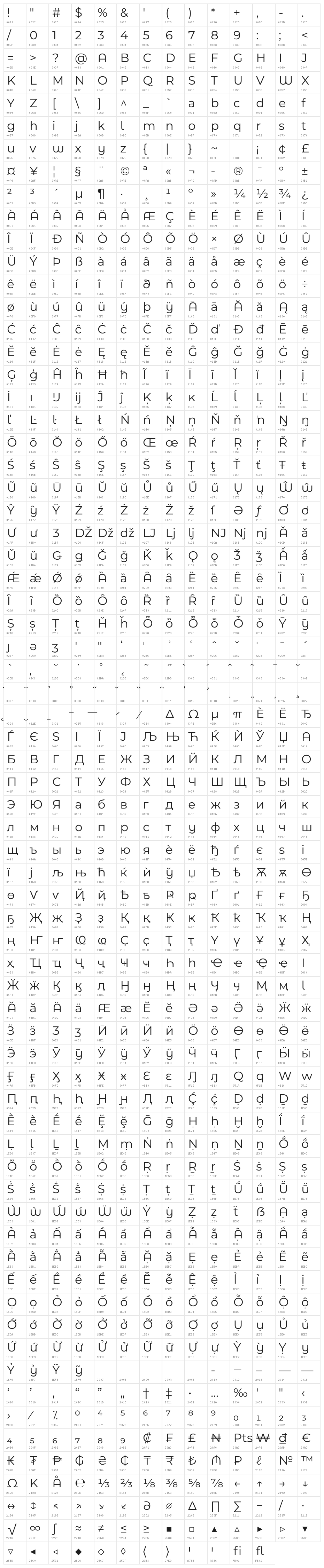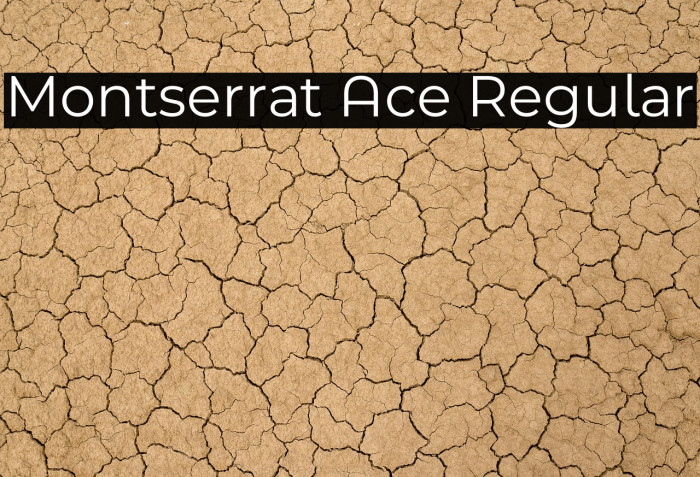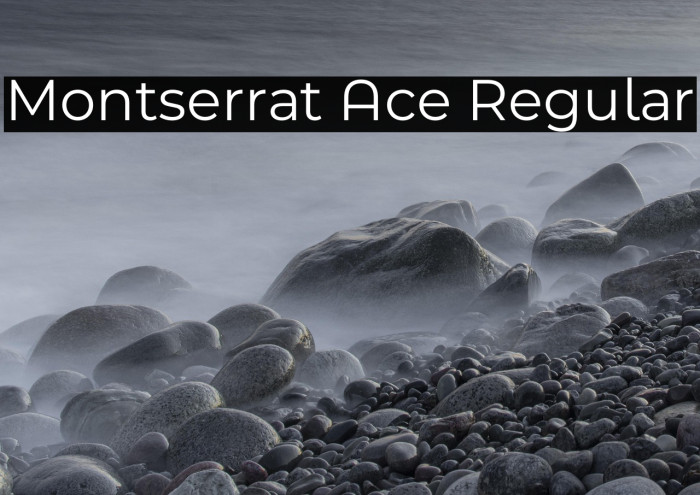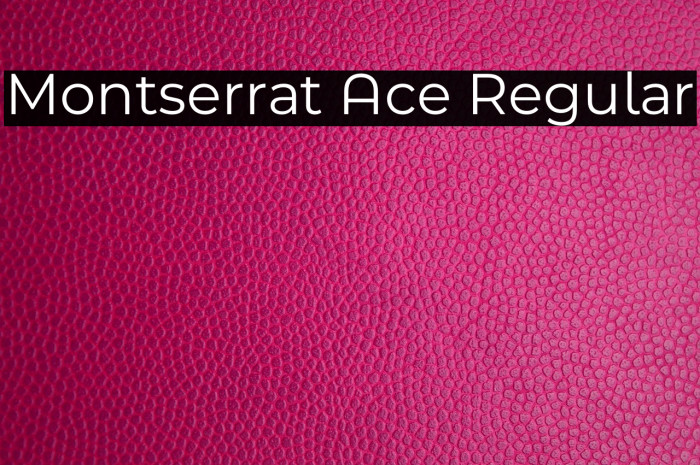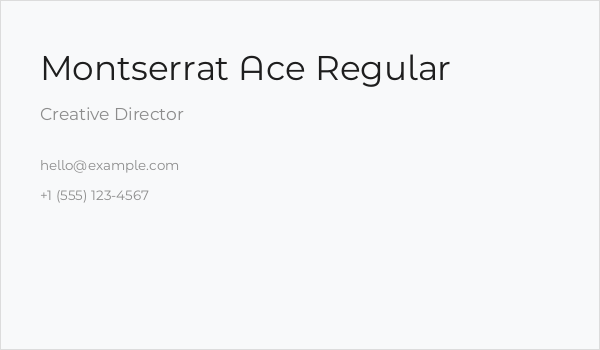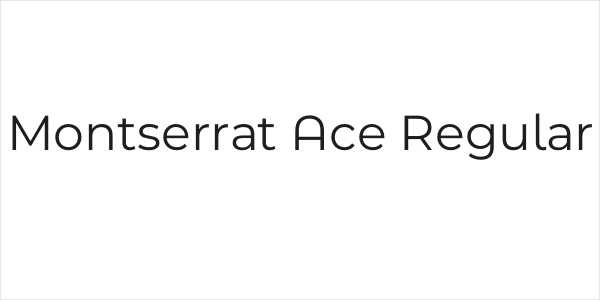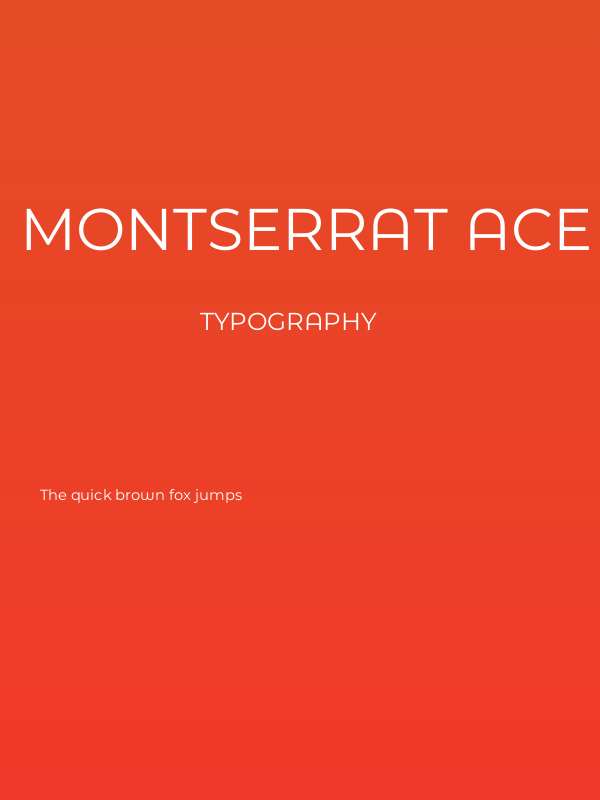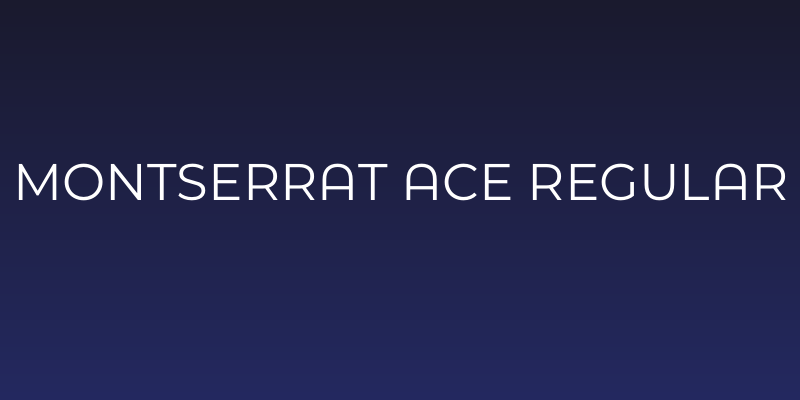
Montserrat Ace Regular Font
Montserrat Ace Regular Description
This font features a clean and modern sans-serif design with geometric influences. The characters are well-balanced with a uniform stroke width, providing a harmonious and professional appearance. The uppercase letters are slightly taller than the lowercase, offering a clear distinction between the two. The numerals are proportional, ensuring readability and consistency. Special characters are designed with the same attention to detail, making them blend seamlessly with the rest of the typeface. The overall look is sleek and versatile, suitable for various design applications.
| Proposed Projects | Ideal for branding, web design, advertising, and editorial projects where a contemporary and professional look is desired. |